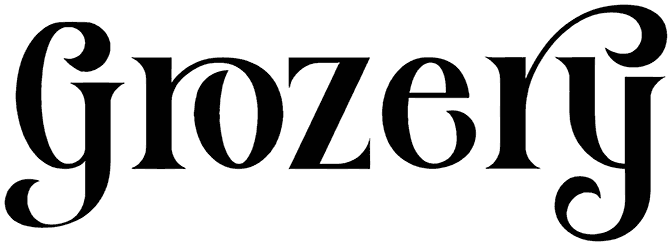
Grozery Font
There is no doubt that a serif font like Grozery will be one of the most popular letterforms in any era. The unique form of characters shows the noble and elegant mood of this ligature font. It has a full cover, and you are free to use it for any short or long text, such as a logotype for a clothes shop or a romance novel.